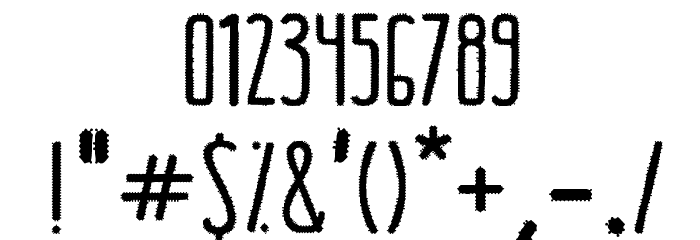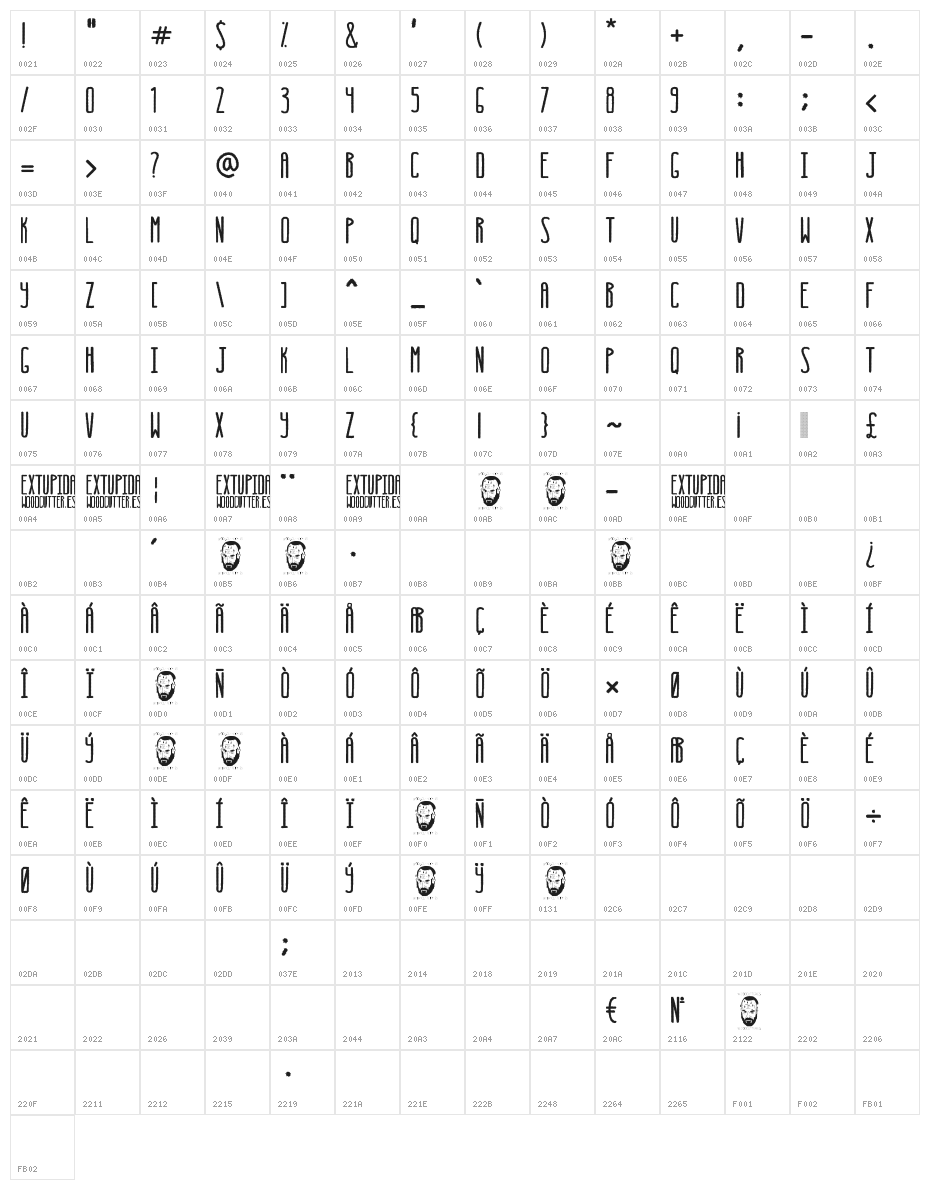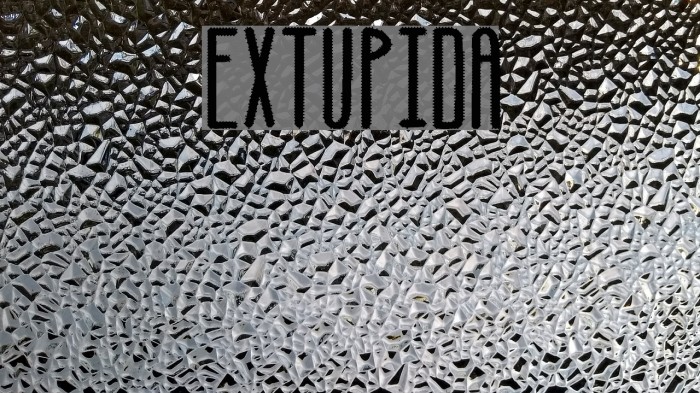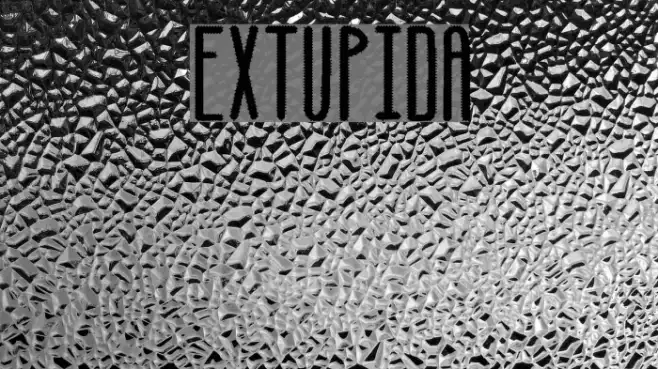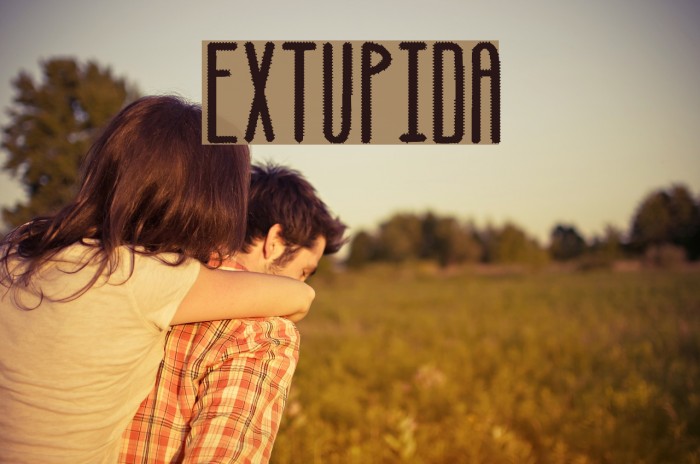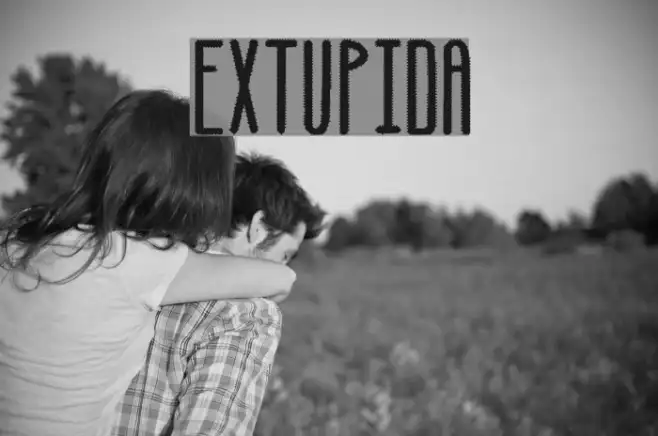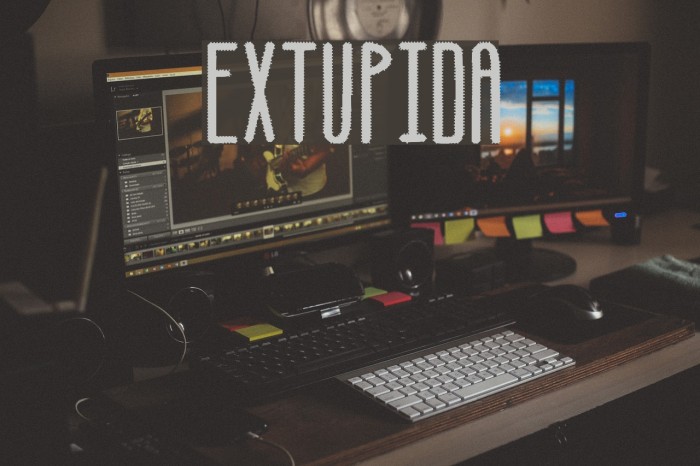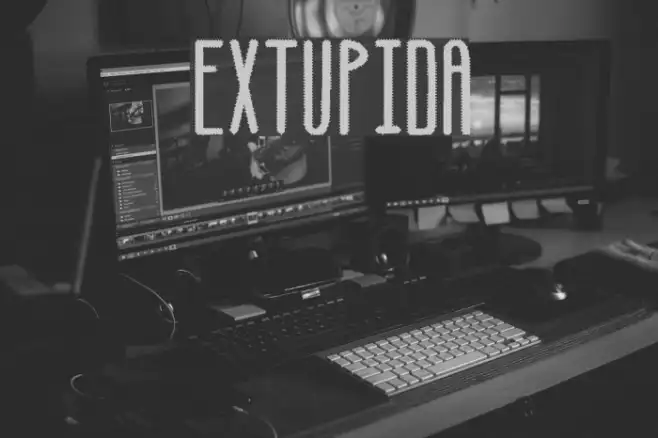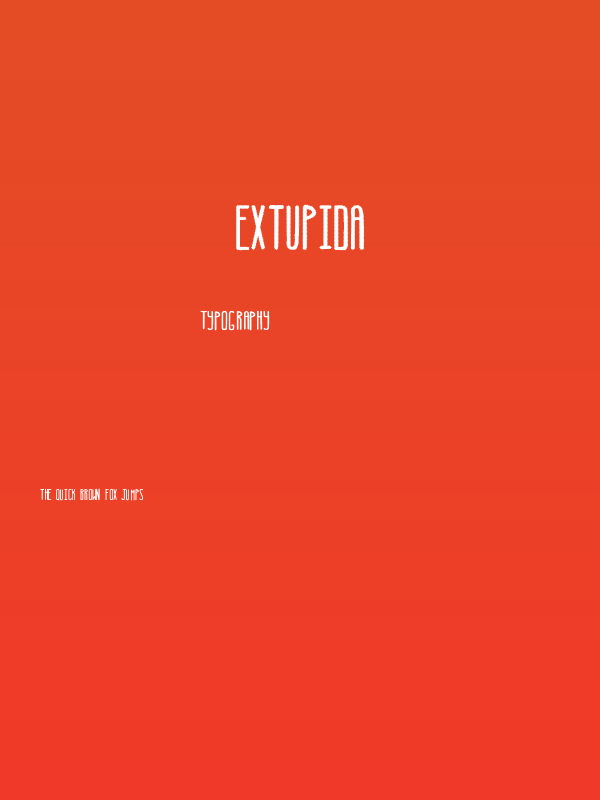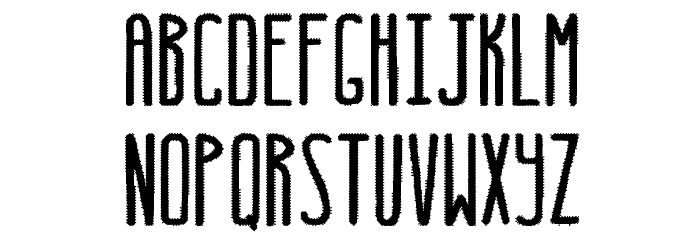
Extupida Font
Extupida Description
This font features a tall and narrow design with a distinctly modern and geometric aesthetic. The uppercase letters are uniform in height, with a consistent stroke width that gives it a clean and structured appearance. The lowercase letters maintain the same narrow proportions, creating a cohesive look throughout. The numerals are similarly styled, ensuring readability and balance. Special characters are included, matching the overall style with a sleek and minimalist approach. This font is ideal for projects that require a contemporary and stylish touch, offering versatility across various design applications.